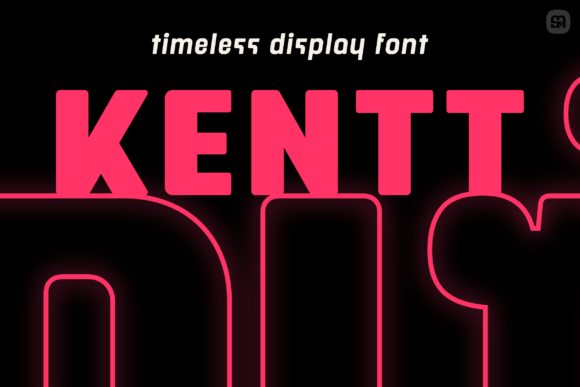
Introducing Kentt Font: The Epitome of Boldness and Distinction
In a world clamoring for attention, your brand's identity needs to reverberate with power and memorability. Enter Kentt Font, the ultimate display font engineered to catapult your brand into the stratosphere of recognition. With its bold strokes and commanding presence, Kentt is not just a font; it's a statement of intent, an emblem of audacity that refuses to be ignored.
Unleash the Power of Unforgettable Branding
Kentt Font is not merely a collection of letters; it's an arsenal of visual weaponry designed to annihilate blandness and mediocrity. Its chiseled edges and confident curves demand attention, ensuring your brand name becomes an unforgettable force in the minds of your audience. Whether you're crafting logos, designing posters, or creating eye-catching social media graphics, Kentt Font is your secret weapon to leaving an indelible mark.
Elevate Your Creativity to Unparalleled Heights
Kentt Font is more than just a font; it's an open invitation to let your creativity run wild. Its versatility knows no bounds, effortlessly adapting to a myriad of design projects. From sleek and sophisticated logos to bold and playful posters, Kentt Font possesses the uncanny ability to transform the ordinary into the extraordinary. Unleash your imagination and witness the birth of designs that break the mold and leave your audience spellbound.
A Symphony of Visual Harmony
Kentt Font is a masterpiece of visual harmony, a delicate dance of shapes and lines that captivates the eye. Its carefully crafted characters exude a sense of balance and cohesion, ensuring your designs radiate an aura of professionalism and sophistication. Whether you're creating marketing materials, branding elements, or simply adding a touch of elegance to your personal projects, Kentt Font elevates your designs to new heights of visual appeal.
The Perfect Addition to Your Font Library
Kentt Font is not just another font; it's a game-changer. Its bold and commanding presence will inject a dose of adrenaline into your design arsenal, empowering you to create works of art that command attention and leave a lasting impression. Join the ranks of those who dare to be different, who refuse to settle for mediocrity. Embrace Kentt Font today and embark on a journey of creative brilliance that will leave your audience breathless.